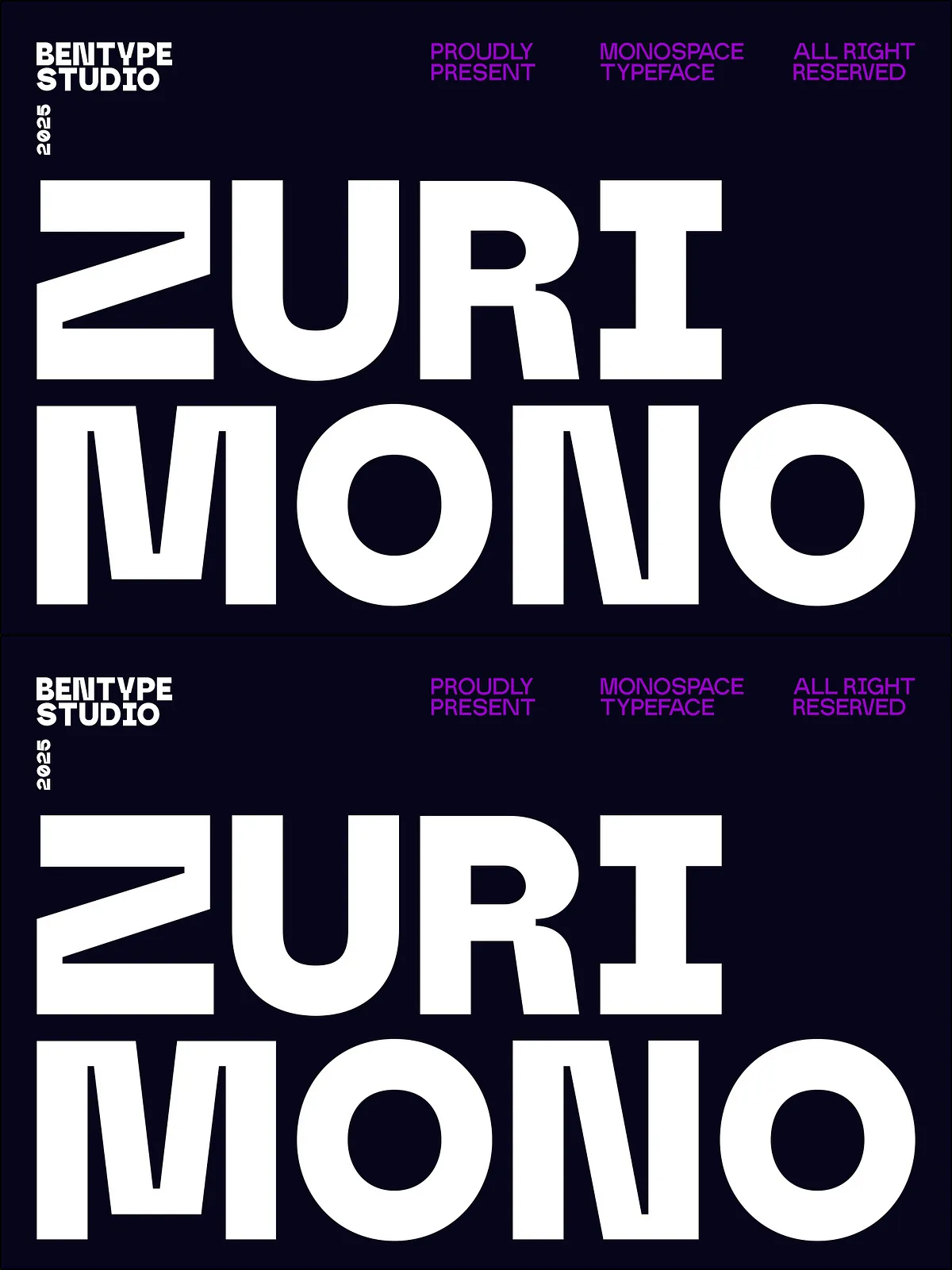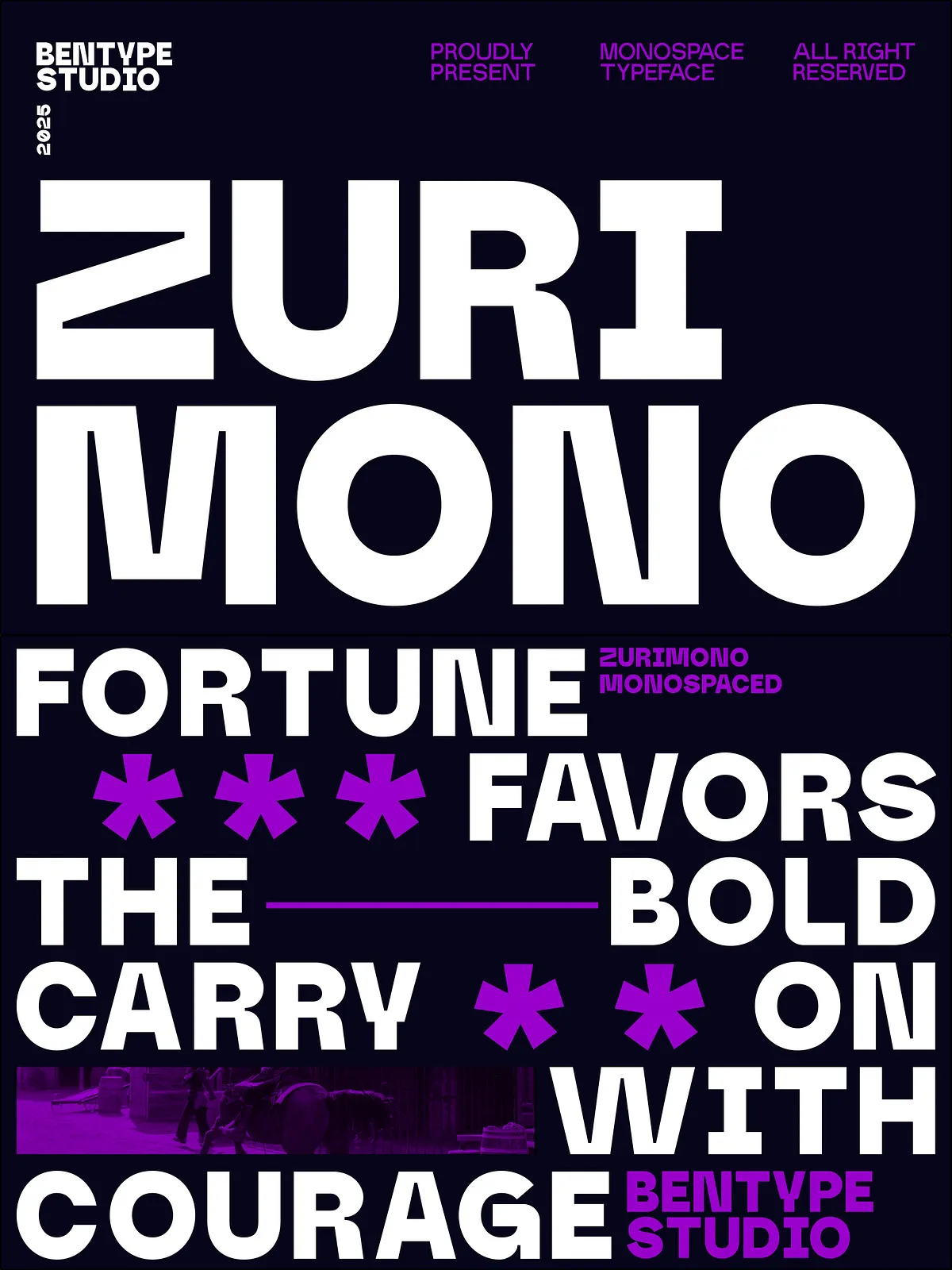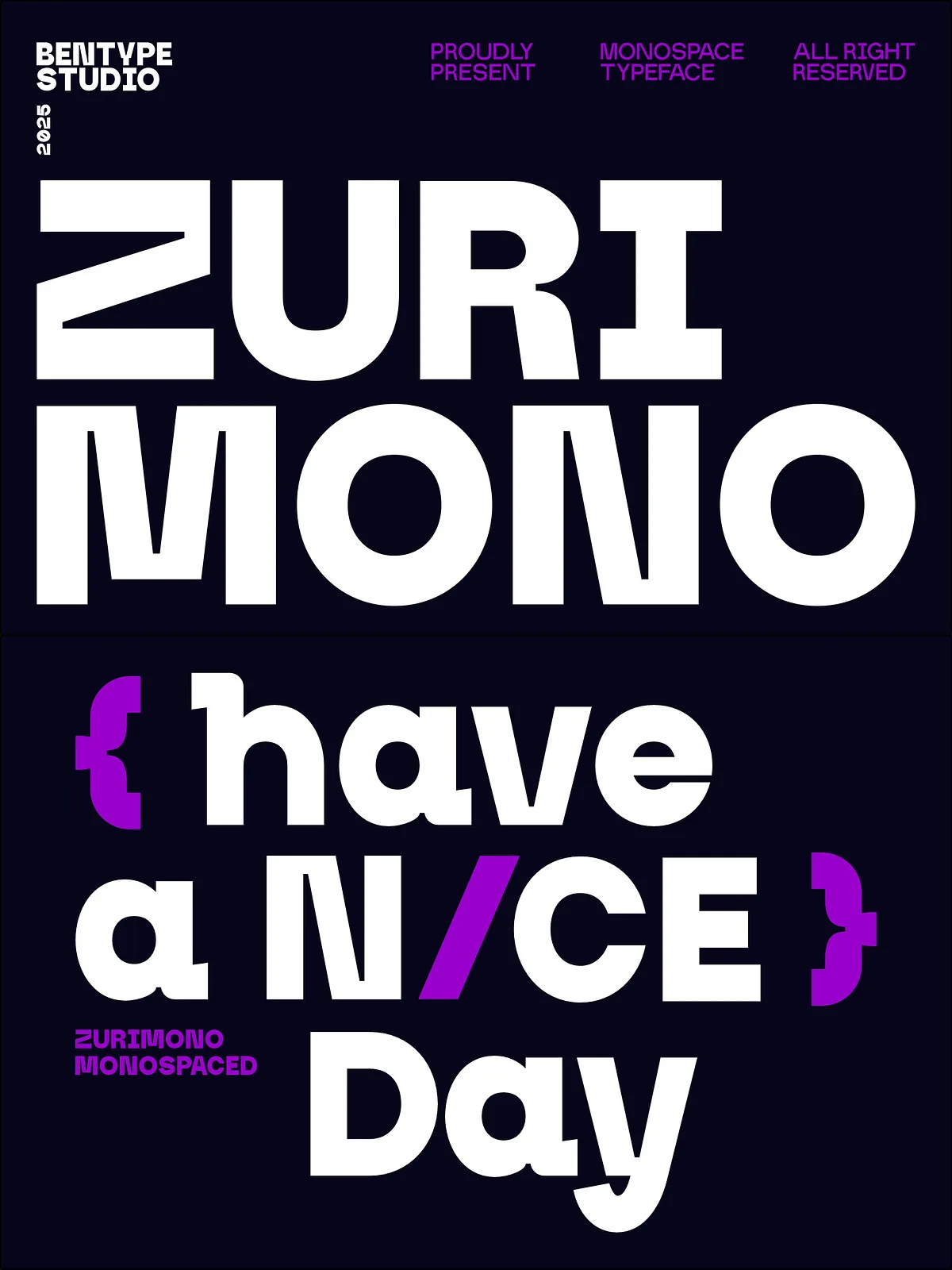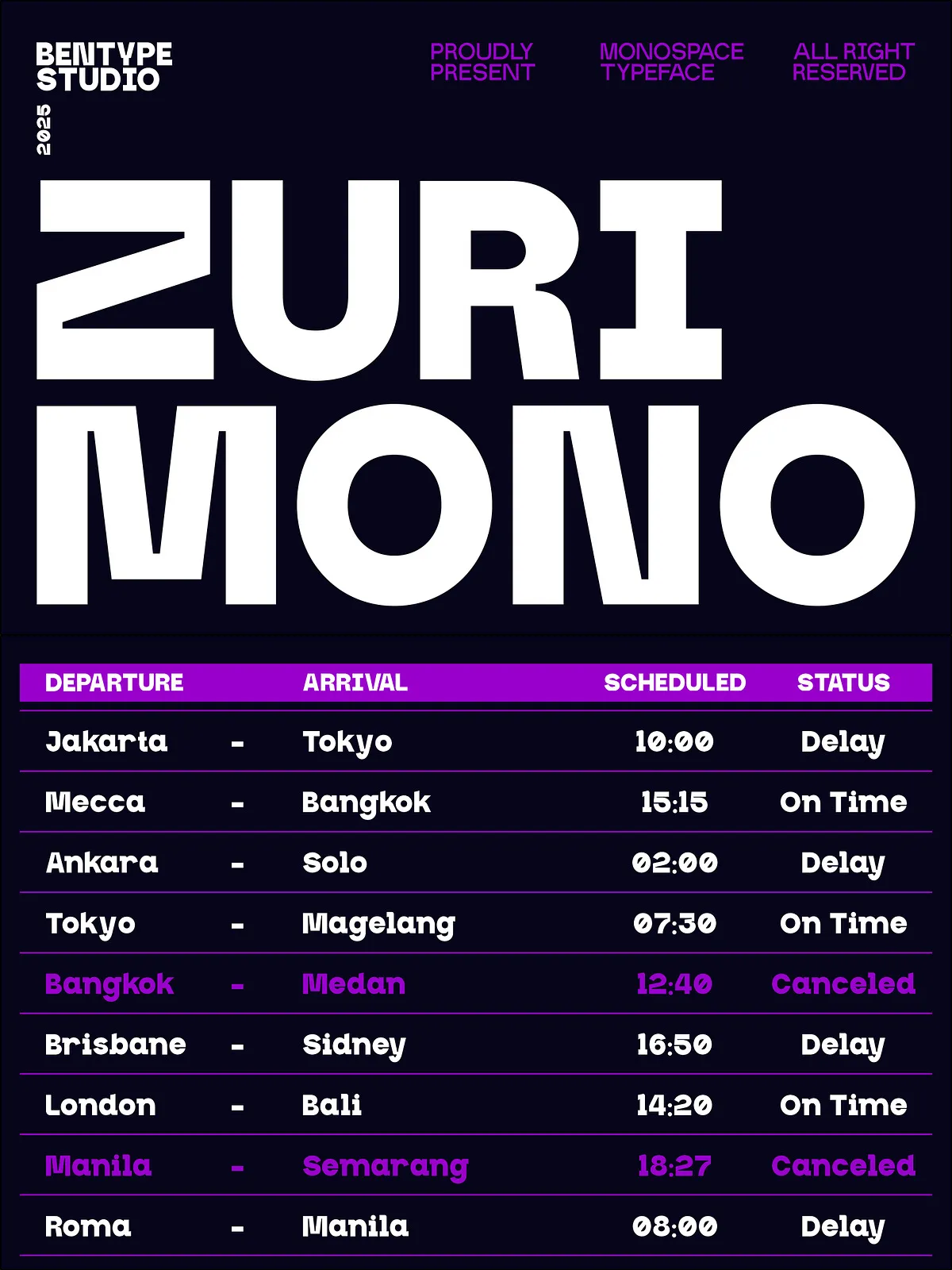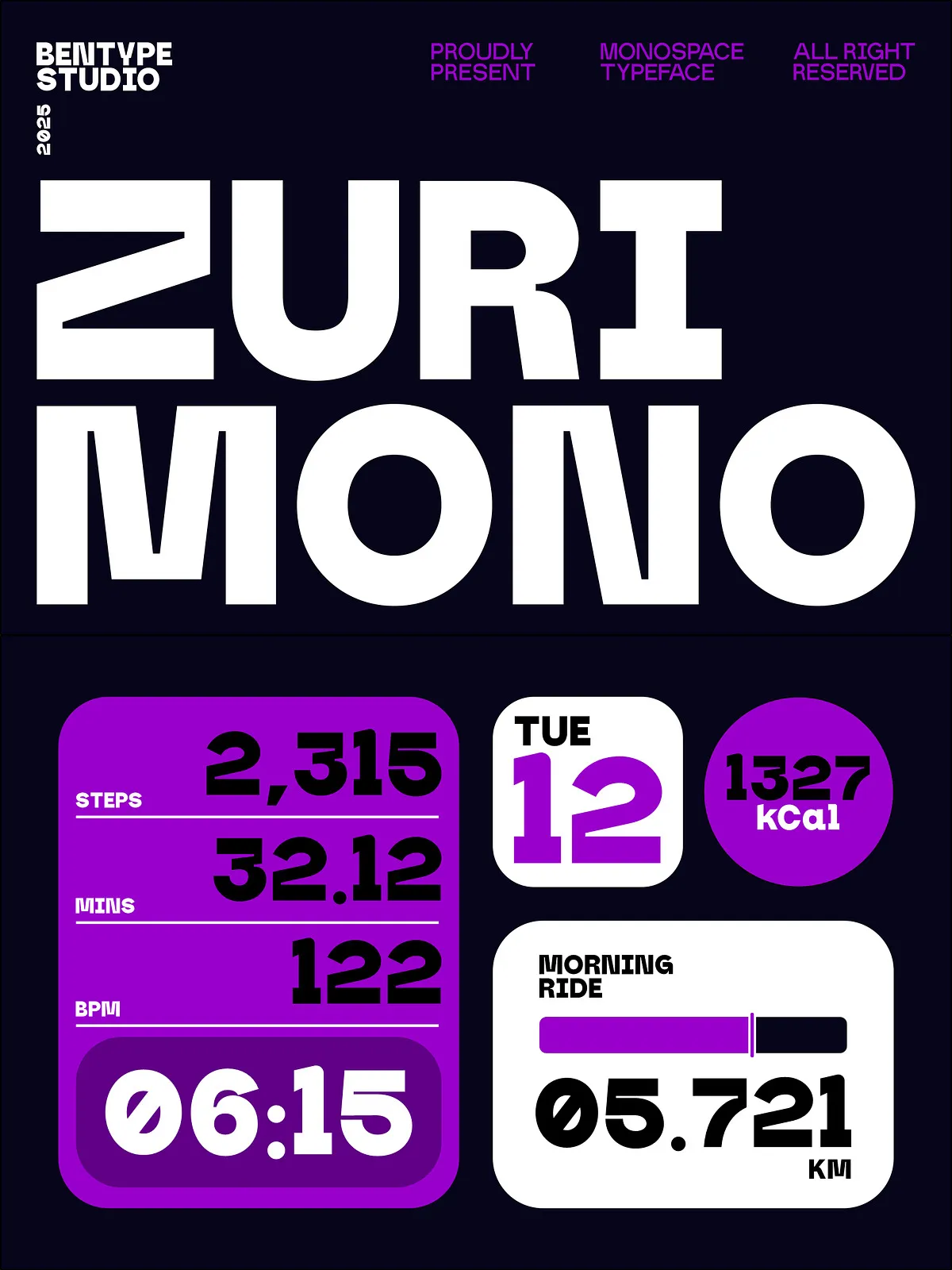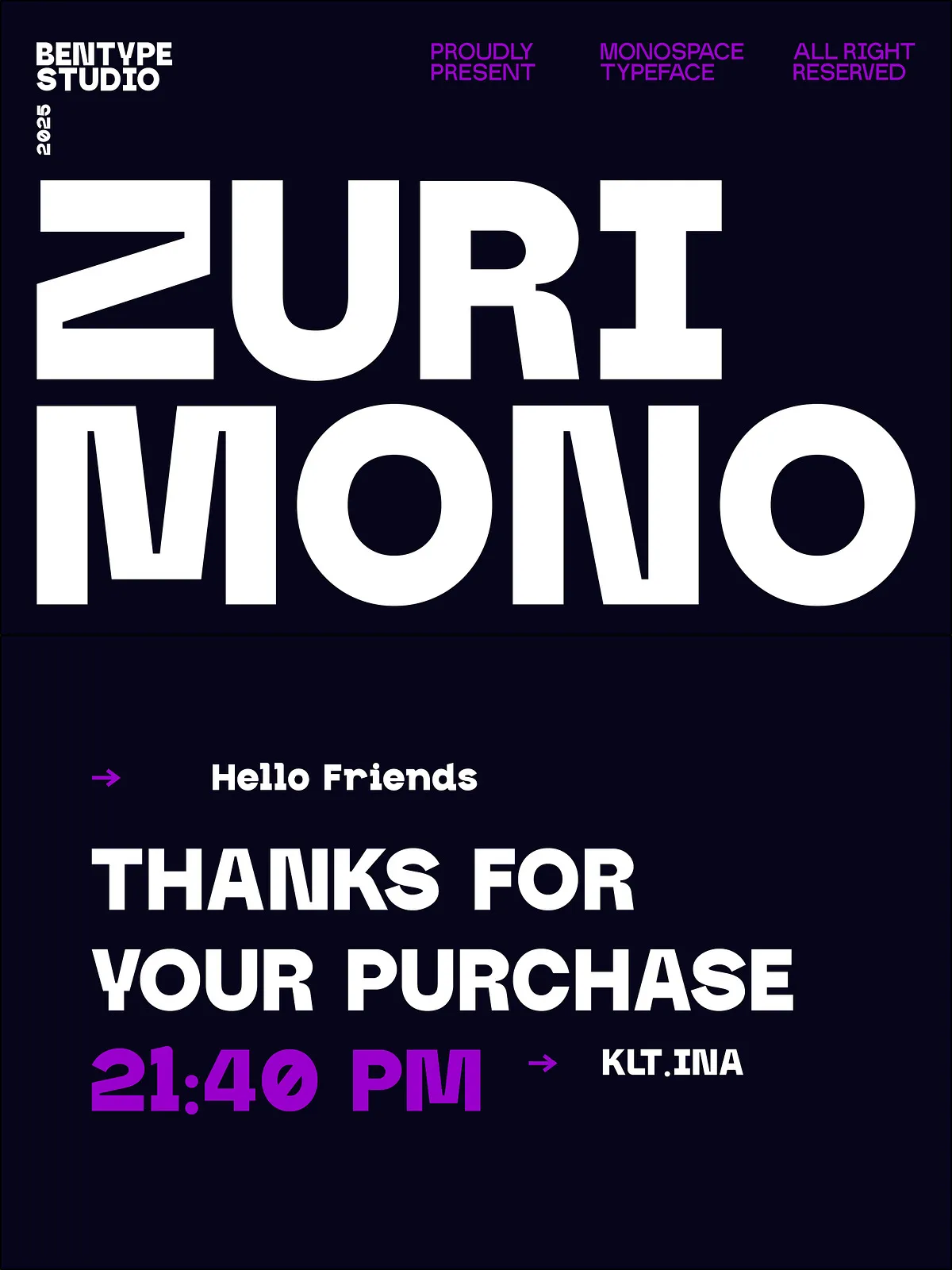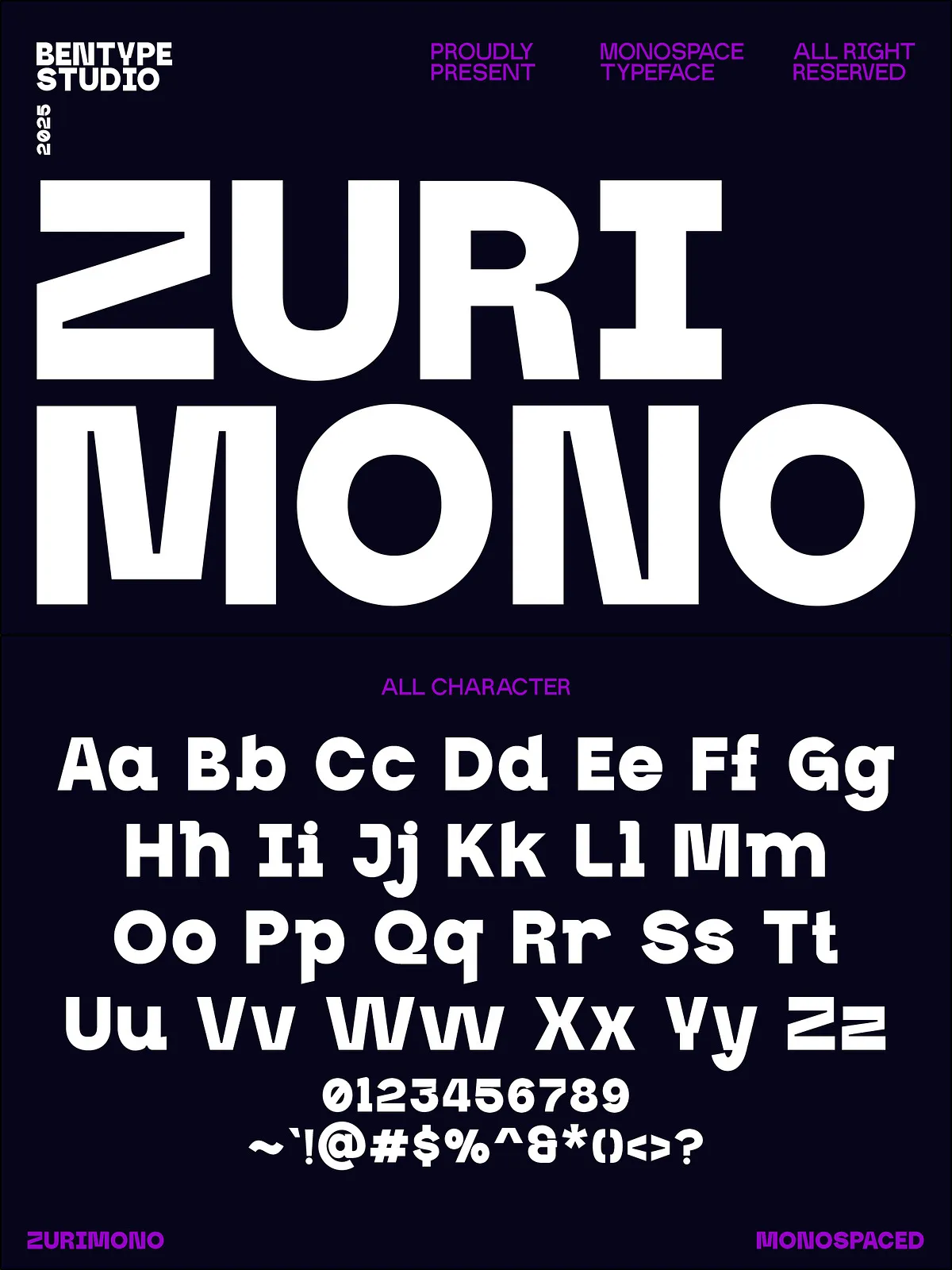
Introducing Zurimono, a standout monospace display font engineered for visual impact and stylistic confidence. Designed with distinctive stems, bold joins, and a tightly condensed structure, Zurimono delivers a powerful retro aesthetic that commands attention. Though intentionally limited in character set and resolution — a hallmark of authentic pixel design — this very limitation fuels its charm, giving it a nostalgic edge that modern fonts often lack.
Whether you’re creating digital signage, bold web banners, game UIs, or striking social media visuals, Zurimono performs with precision and presence. Its uniform character width ensures perfect alignment, while its sharp, geometric forms add a sense of mechanical precision and futuristic flair.
Why Zurimono Stands Out in the World of Pixel Fonts
While many pixel fonts sacrifice clarity for style, Zurimono strikes the perfect balance — bold in form, sharp in detail, and clear in intent.
Unique Stems and Joins – A Signature Design Language
Every character in Zurimono is hand-crafted to feature distinctive structural elements: sharp, angular stems that cut through the background, and interlocking joins that create a sense of cohesion and rhythm. These design choices aren’t just visual — they’re functional, ensuring consistent spacing and legibility even at small sizes.
Crafted for Display & Impact
Zurimono thrives in large-scale applications. Use it for:
- Headlines that dominate the page
- Banners with instant recognition
- Digital signage with high visual pull
- Game UI elements that feel authentic and tactile
- Branding with a retro-tech edge
Its condensed style maximizes space without sacrificing readability — perfect for tight layouts where every pixel counts.
Comprehensive Character Support
Despite its pixelated roots, Zurimono delivers full functionality with:
- Uppercase and lowercase letters with consistent stroke weight
- Numbers and punctuation marks designed to match the font’s aesthetic
- Clear kerning and spacing to prevent visual clutter
This ensures you can use the font for actual text blocks, not just decorative logos or titles, without compromising design integrity.
Applications That Demand Zurimono’s Bold Presence
Game & App UI Design
Bring authenticity to your digital environments. Zurimono is ideal for in-game menus, player scores, or mobile app headers where a mechanical, pixel-perfect feel is essential. Its structure evokes classic arcade and terminal interfaces.
Branding & Logo Design
Create a strong visual identity with a retro-tech twist. Use Zurimono for startup logos, tech product names, or label styles that need to feel both modern and nostalgic. It’s perfect for industries like gaming, software, or digital services.
Digital & Print Displays
Whether it’s a poster at a music festival, a festival banner, or a product label, Zurimono adds instant attention-grabbing power. Its condensed form allows more text in less space — a critical advantage in high-density visual environments.
Web & Social Media Graphics
Design eye-catching Twitter/X posts, Instagram stories, or YouTube thumbnails. Use Zurimono for titles, tags, or countdowns. Its high contrast and clean lines make it highly readable even on small screens.